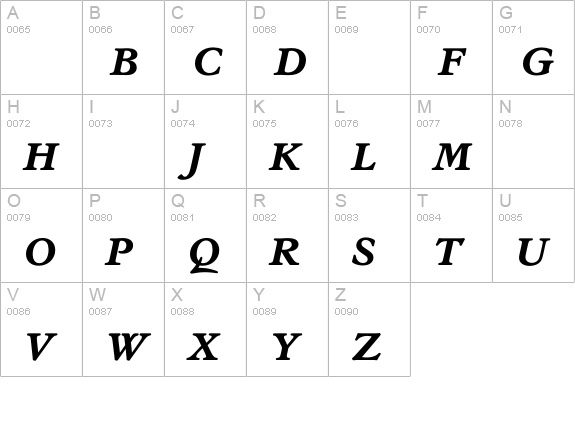
StanhopeBoldItalic Font Details
Introducing StanhopeBoldItalic, a stunningly elegant font that effortlessly combines boldness and italicized flair. With its unique blend of strong, confident lines and captivating slanted angles, this font exudes a sense of sophistication and creativity like no other. Designed with meticulous attention to detail, StanhopeBoldItalic is perfect for adding a touch of class to any project. Whether you're designing a logo, creating eye-catching headlines, or crafting stylish invitations, this font will elevate your work to new heights. But what makes StanhopeBoldItalic even more remarkable is that it is free. Yes, you read that right! This extraordinary font is freely available to download at FontsMarket.com, making it accessible to anyone looking to add a touch of elegance to their design projects. Now you can create stunning visuals without breaking the bank. With its wide range of characters and glyphs, StanhopeBoldItalic offers endless possibilities for expressing your creativity. Its strong presence and unique style will leave a lasting impression, making your designs stand out from the crowd. So why wait? Download StanhopeBoldItalic today from FontsMarket.com and unlock a world of elegance and sophistication. Let this font be your secret weapon in creating captivating visuals that leave a lasting impact. Don't miss out on the opportunity to enhance your design projects with this extraordinary font, available to you for free.